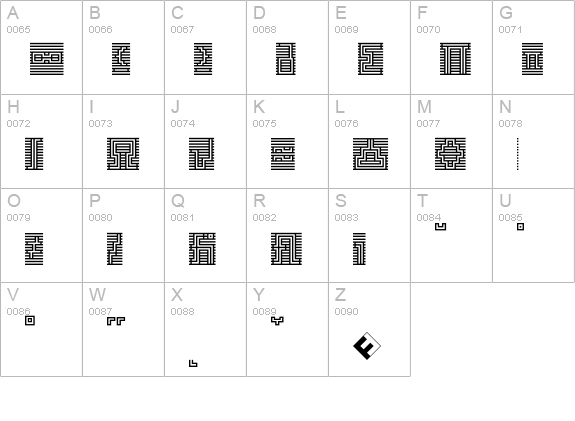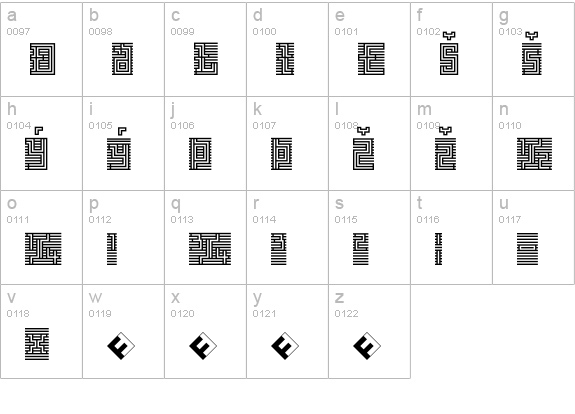
Archian-InitialExpert is a stylish and sophisticated font that exudes elegance and professionalism. With its sleek lines and modern design, this font is perfect for adding a touch of sophistication to any project. The unique letterforms and intricate details make Archian-InitialExpert a standout choice for branding, advertising, and design projects. What sets Archian-InitialExpert apart is not only its stunning aesthetic appeal but also its versatility. Whether you're creating a logo, designing a website, or crafting a poster, this font will elevate your work to the next level. Its clean and crisp appearance ensures readability while making a bold statement. The best part? Archian-InitialExpert is available for free download at FontsMarket.com. This means you can access this premium font without breaking the bank, making it the perfect choice for designers on a budget. Don't miss out on the opportunity to enhance your projects with the timeless elegance of Archian-InitialExpert. Download it now and take your designs to new heights!